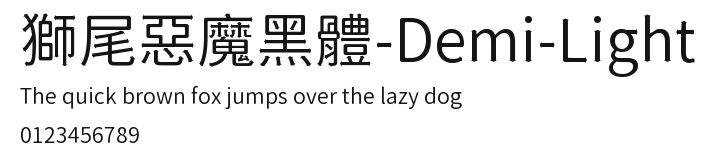
獅尾惡魔黑體-Demi-Light Preview
• Font Name: 獅尾惡魔黑體-Demi-Light
• Font Style: Demi-Light
• Full Font Name: 獅尾惡魔黑體-Demi-Light
About 獅尾惡魔黑體-Demi-Light.ttf
獅尾惡魔黑體-Demi-Light.ttf is a modern, elegant sans-serif font designed for ultimate readability and visual harmony. Perfect for branding, headlines, web design, and print materials.